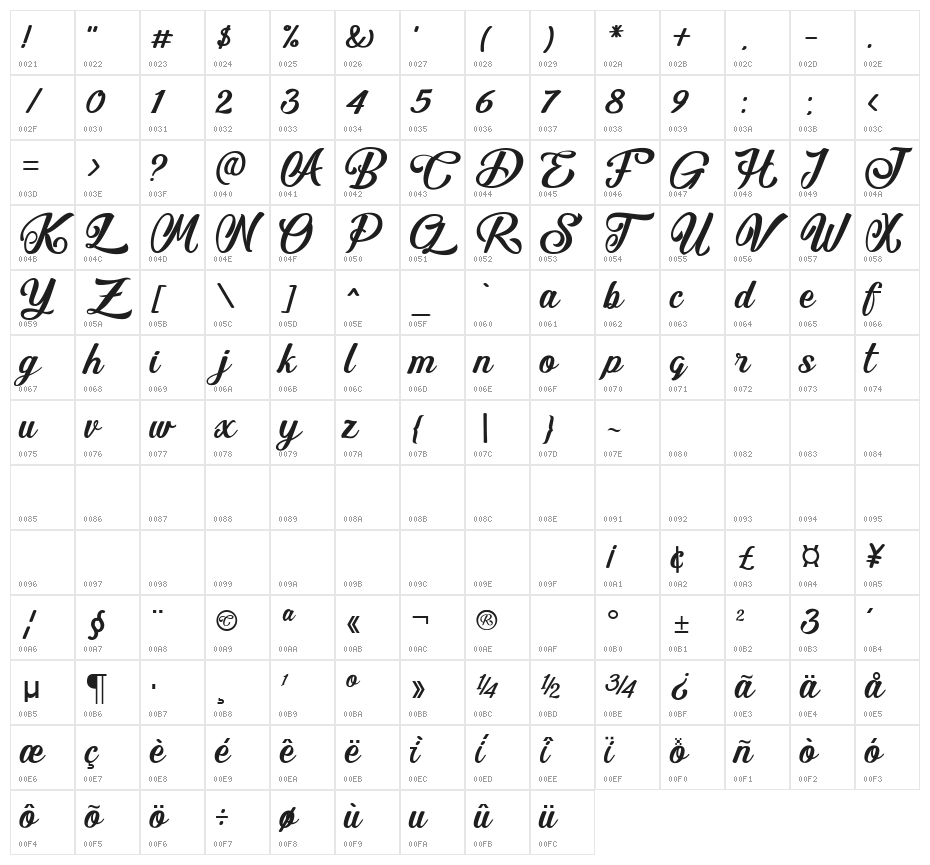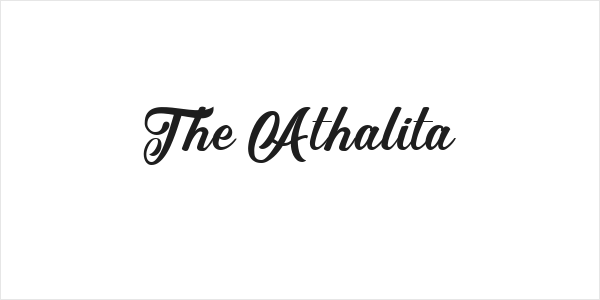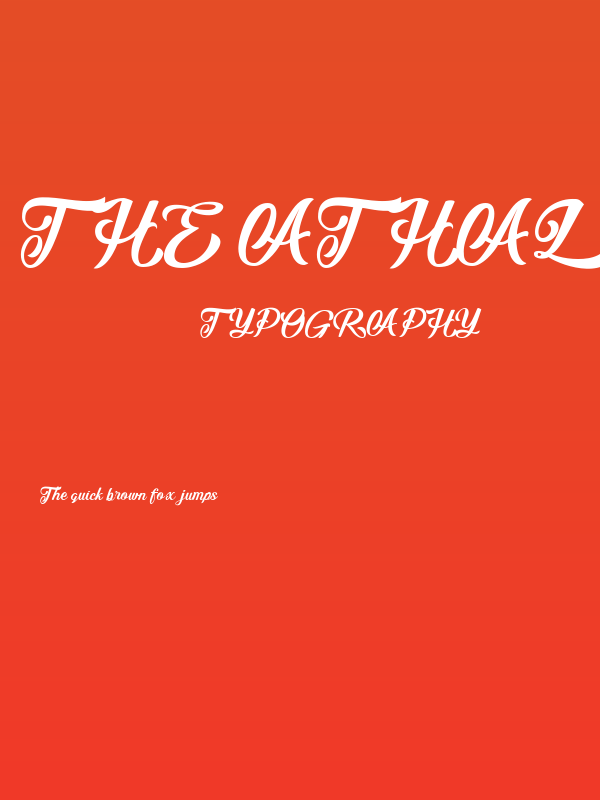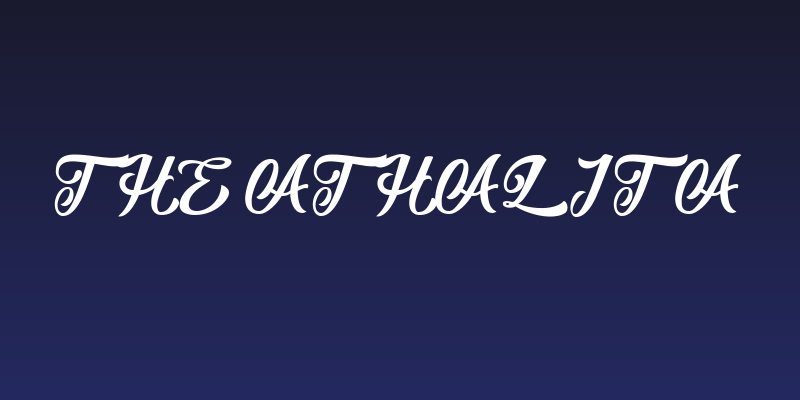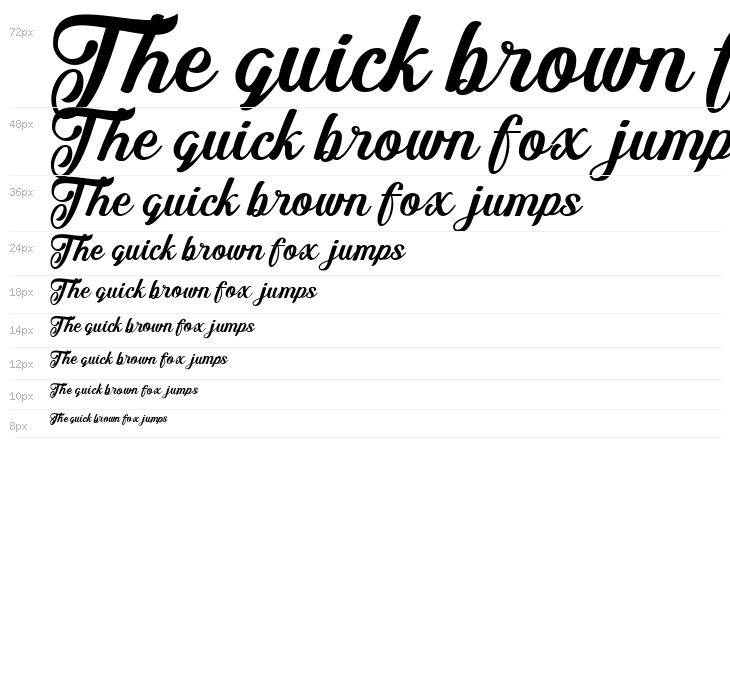
The Athalita Font
The Athalita Description
This elegant script font features flowing, cursive letterforms with a classic and sophisticated appearance. The uppercase letters are ornate, with intricate loops and swirls that add a touch of formality and grace. The lowercase letters maintain a smooth and connected style, enhancing readability while preserving the decorative nature of the font. The numerals are consistent with the script style, offering a cohesive look across all characters. Special characters are designed to complement the overall aesthetic, making this font suitable for a variety of creative applications.
| Use Case | Logos, Invitations, Decorative Text |
| Proposed Projects | Ideal for wedding invitations, elegant branding, greeting cards, and high-end product packaging. |